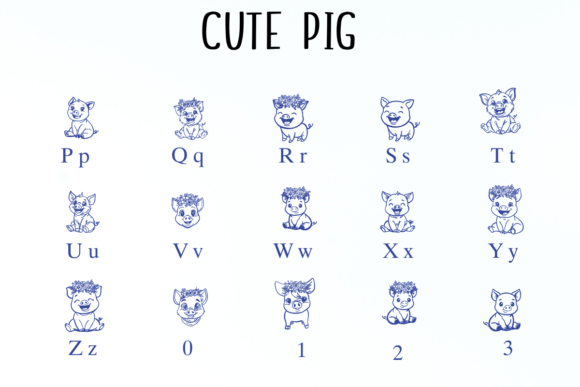
Cute Pig Font: Add a Playful Touch to Your Creative Projects
Are you looking for a fun and unique font to add a playful touch to your creative projects? Look no further than the Cute Pig font! This adorable dingbats font is perfect for a variety of projects, from wedding invitations to DIY crafts, decorations, logos, and many other creative ideas.
What is Cute Pig Font?
Cute Pig is a fun dingbats font that features cute and playful pig designs. The font is made up of various pig illustrations, including pigs in different poses, with different expressions, and surrounded by various decorative elements. The font is designed to be easy to use and can be installed on your computer or used online.
Features of Cute Pig Font
The Cute Pig font has several features that make it a great choice for your creative projects. Some of the key features include:
- Playful designs: The font features a range of playful pig designs that are sure to add a touch of whimsy to your projects.
Uses for Cute Pig Font
The Cute Pig font is a versatile font that can be used on a variety of creative projects. Some of the most popular uses for the font include:
- Wedding invitations: Add a playful touch to your wedding invitations with the Cute Pig font.
- DIY crafts: Use the font to add a personal touch to your DIY crafts, such as signs, banners, and decorations.
- Decorations: Use the font to create custom decorations, such as garlands, banners, and signs.
- Logos: Use the font to create a fun and playful logo for your business or brand.
- Social media graphics: Use the font to create fun and engaging social media graphics, such as Facebook posts and Instagram stories.
Tips for Using Cute Pig Font
Here are a few tips for using the Cute Pig font:
- Use it sparingly: While the font is playful and fun, it can be overwhelming if used too much. Use it sparingly to add a touch of whimsy to your projects.
- Experiment with colors: The font looks great in a variety of colors, so don’t be afraid to experiment and find the perfect color for your project.
- Combine with other fonts: The Cute Pig font pairs well with other fonts, so try combining it with a more traditional font to create a unique look.
The Cute Pig font is a fun and playful dingbats font that is perfect for adding a touch of whimsy to your creative projects. With its easily scalable designs, ease of use, and compatibility with most software, the font is a great choice for crafters and designers of all skill levels. Whether you’re creating wedding invitations, DIY crafts, decorations, logos, or social media graphics, the Cute Pig font is sure to add a playful touch to your projects.